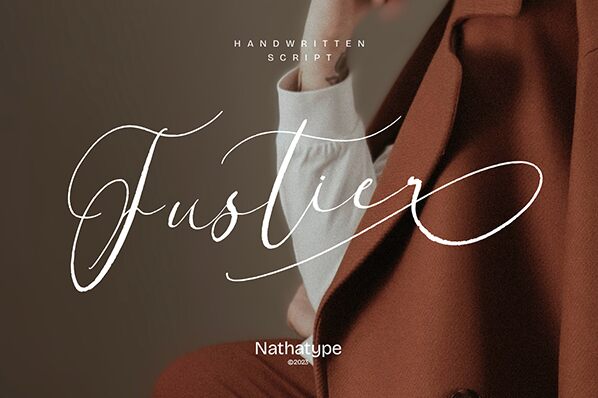
Fustier font by Nathatype is a graceful handwritten font with a light weight and elegant, flowing design. It imitates a real signature that combines the handwriting appearance of pen strokes with some refined decorations and curves.
Invite your audience to enjoy this romanic touch with wedding invitations, love confession cards, fashion magazine covers, accessory and jewelry branding, product packaging, perfume labels etc. The font is free and works equally well in both print designs and digital applications like blogs or websites.